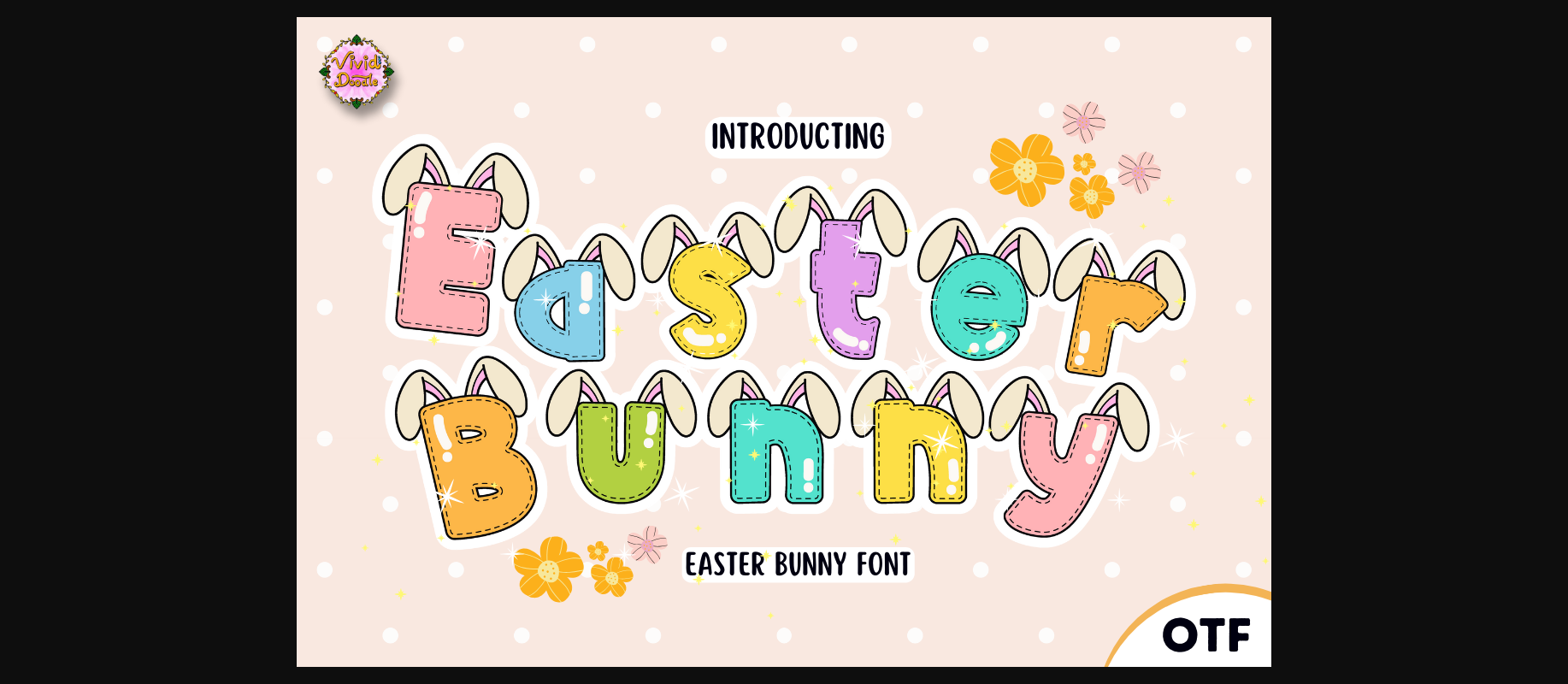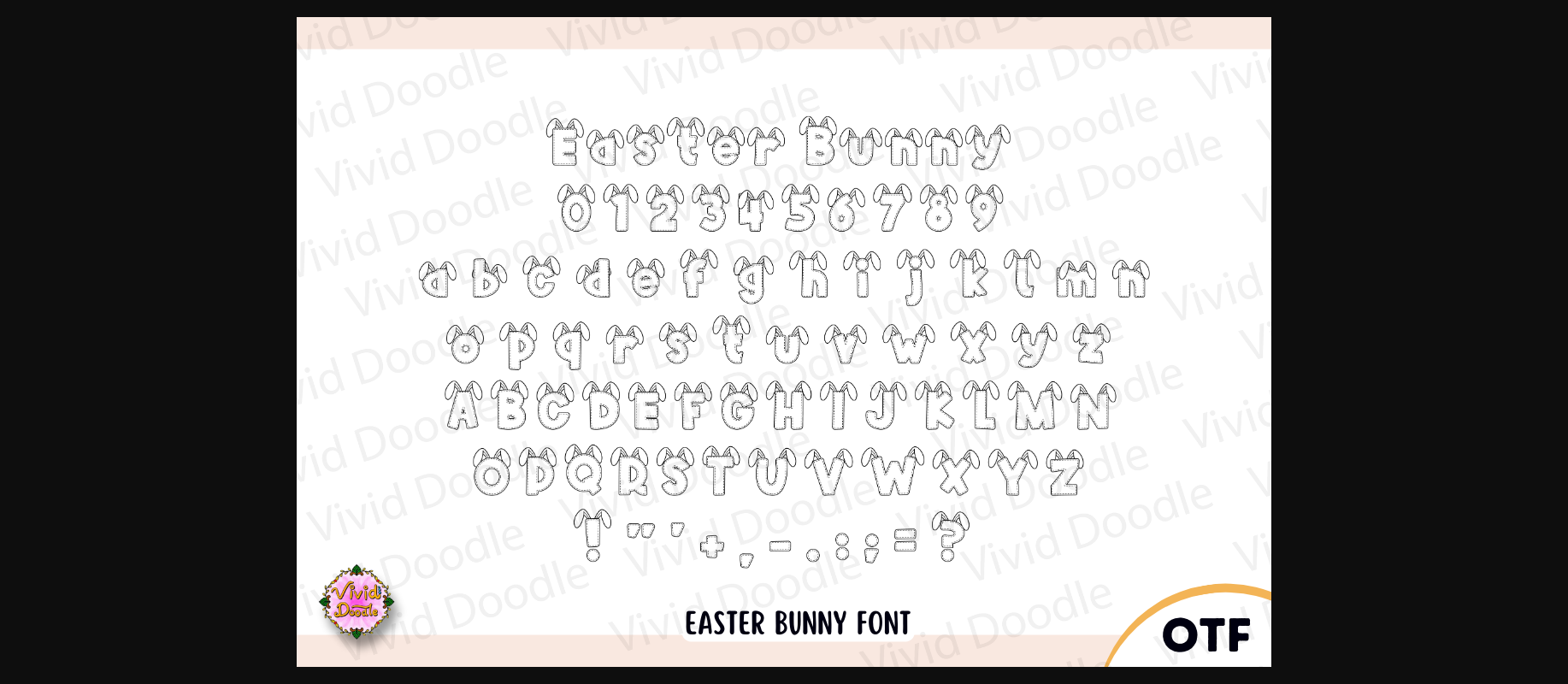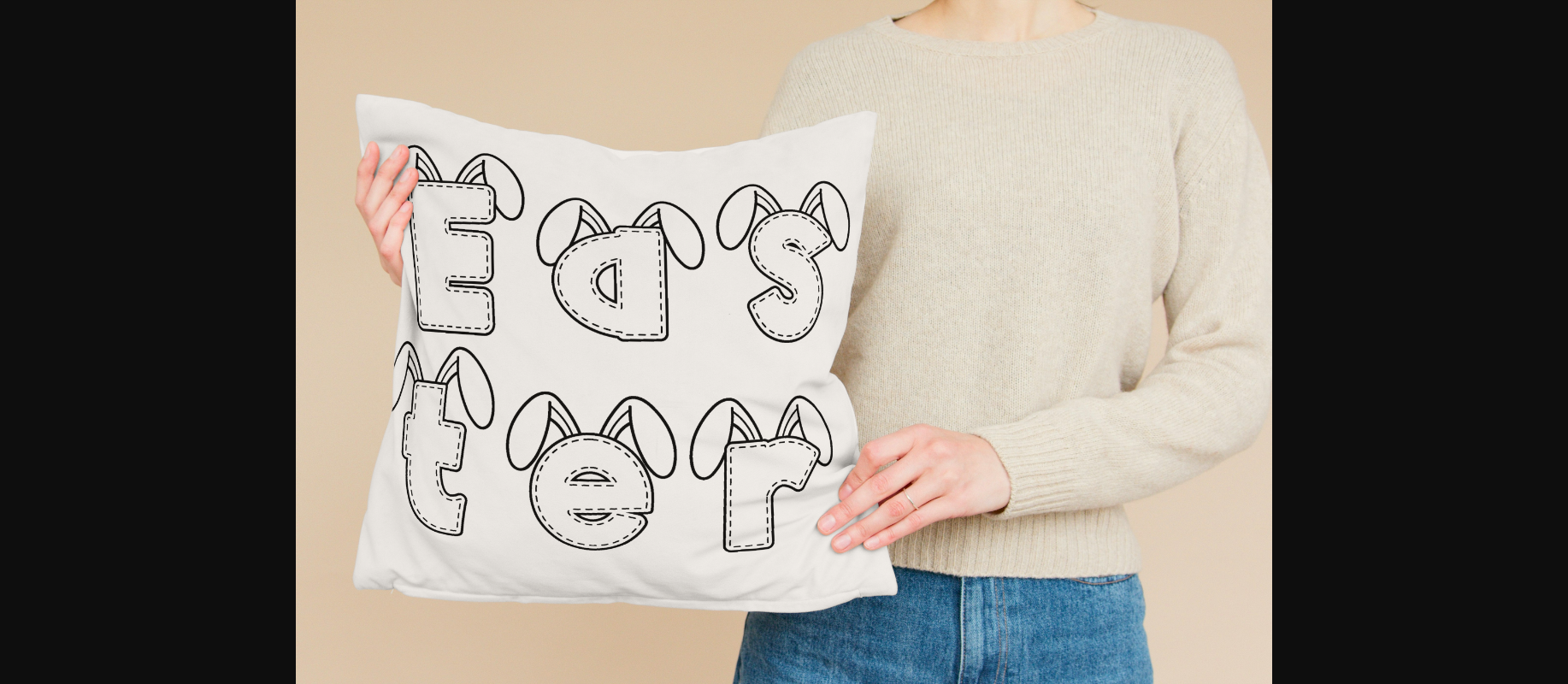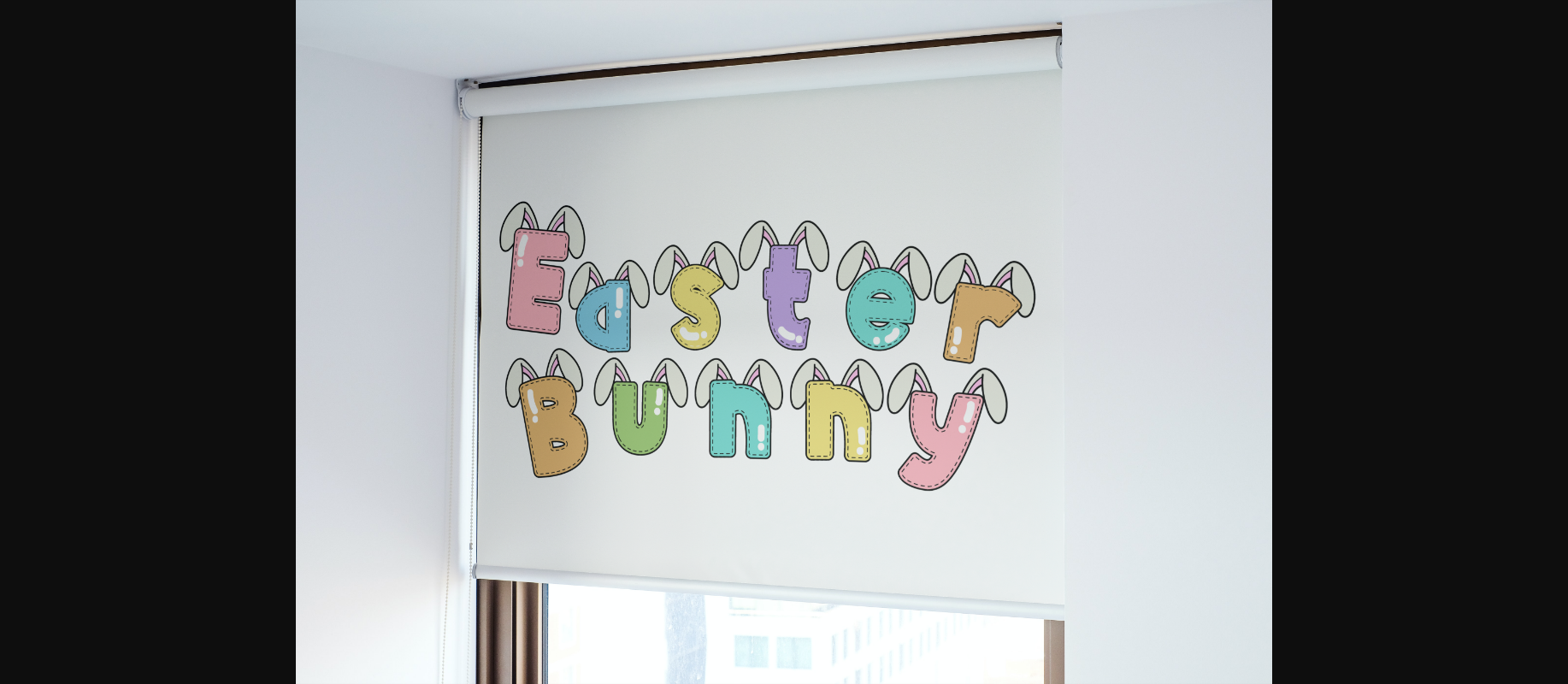
Easter Bunny Font
About Easter Bunny Font
Introducing Easter Bunny — an adorable and charming typeface perfect for celebrating Easter. This cute Easter alphabet captures the playful spirit of the holiday, featuring whimsical bunny-inspired letters. Whether for Easter cards, decorations, or any design that embraces the season’s joy, this font seamlessly blends a cute aesthetic with the festive charm of Easter. Elevate your designs with the delightful allure of the Easter Bunny font, turning every project into a visually engaging and joyfully Easter-themed experience.